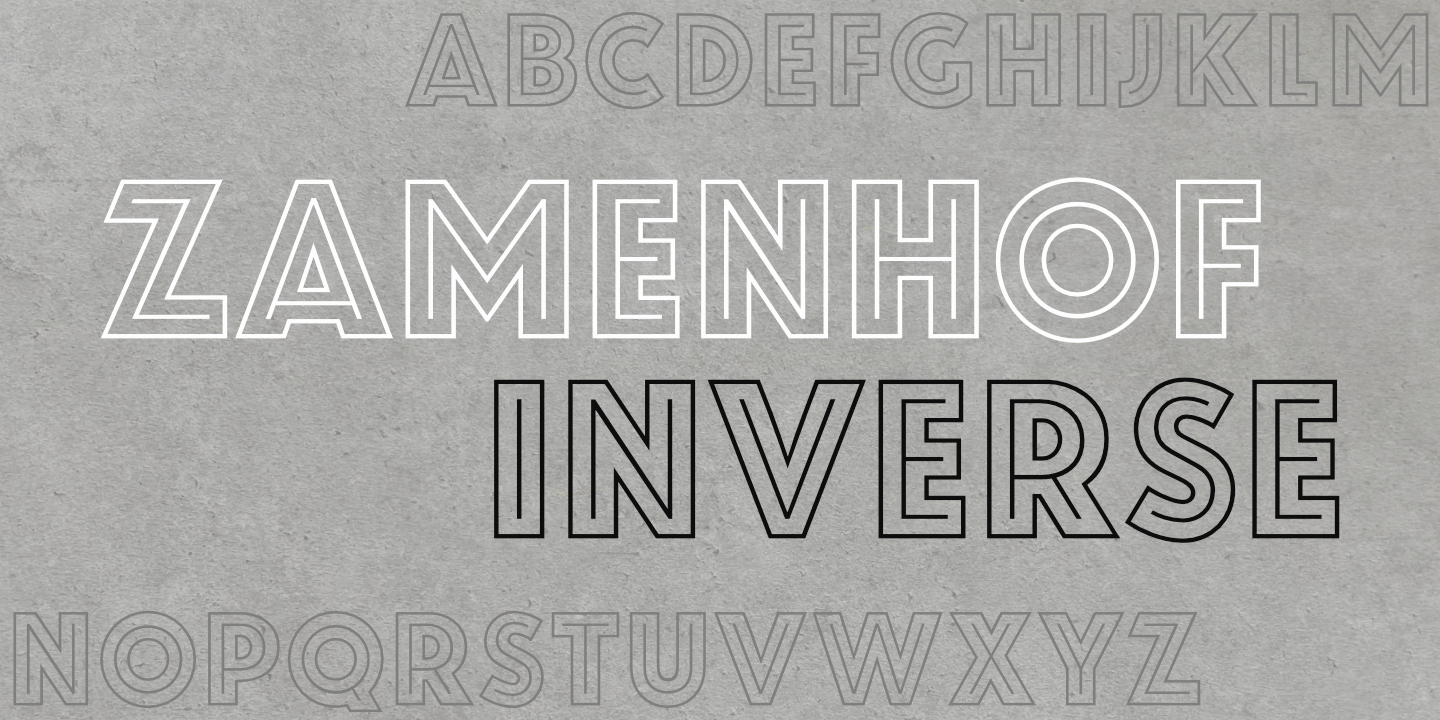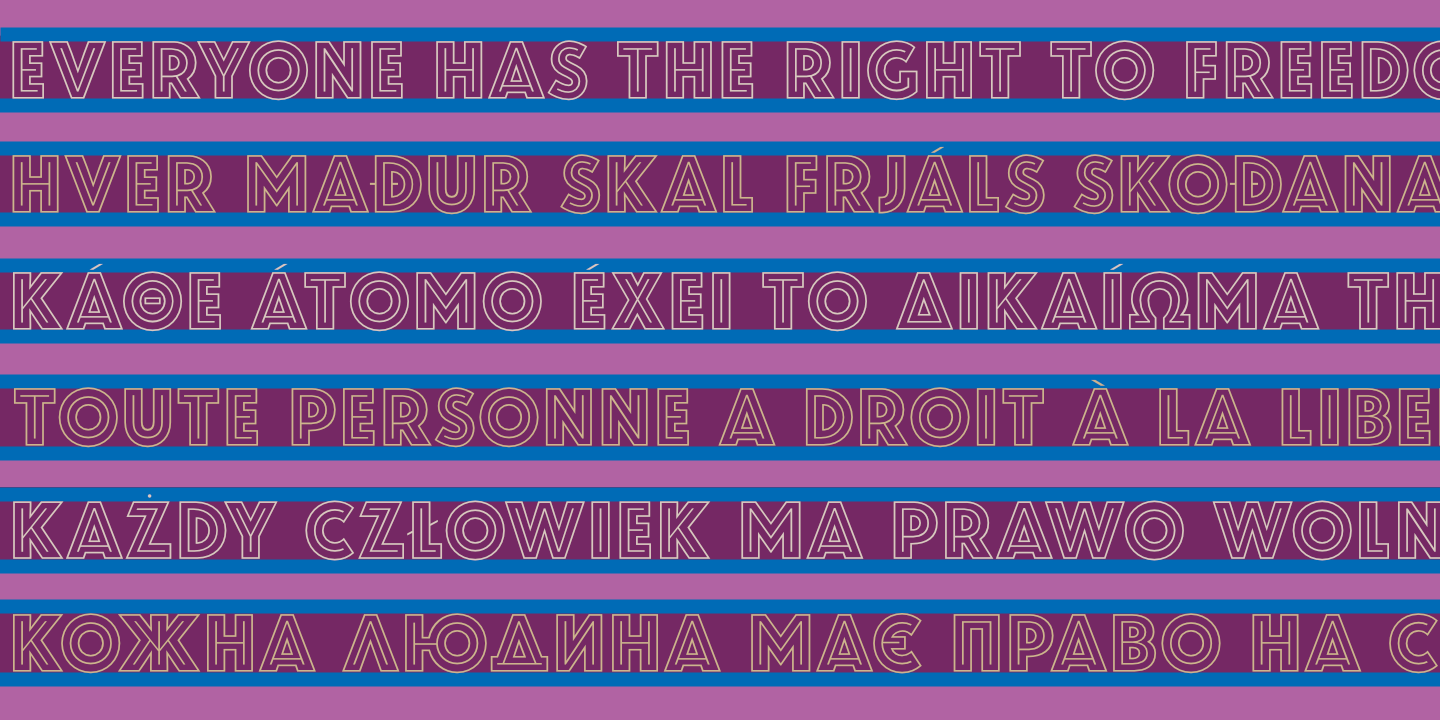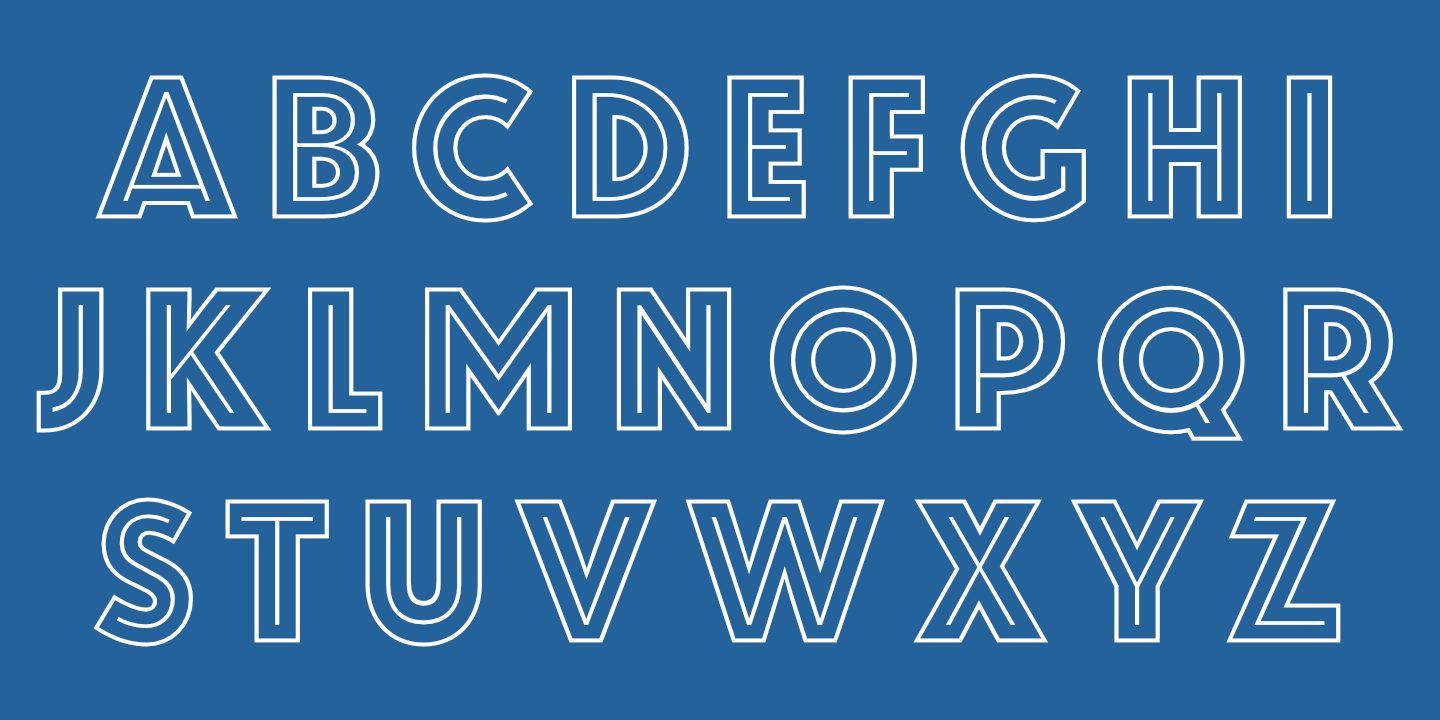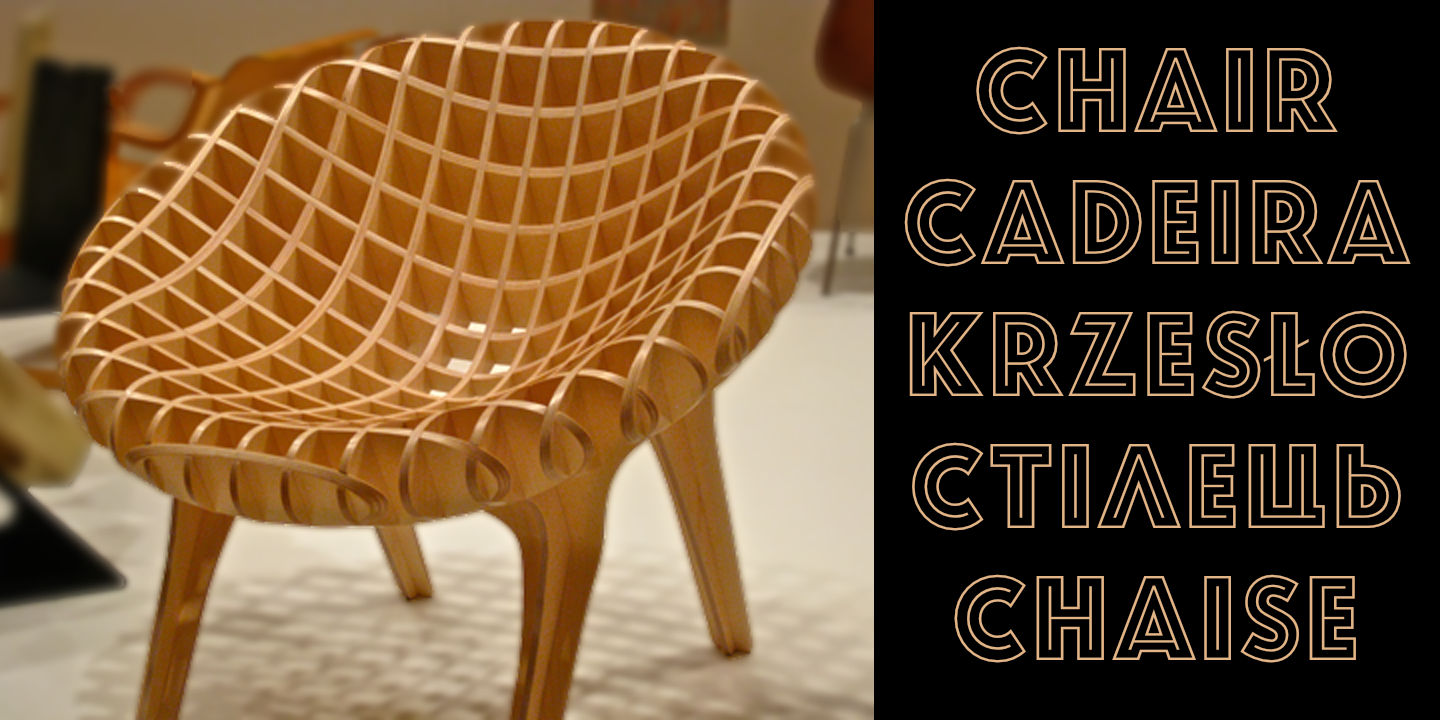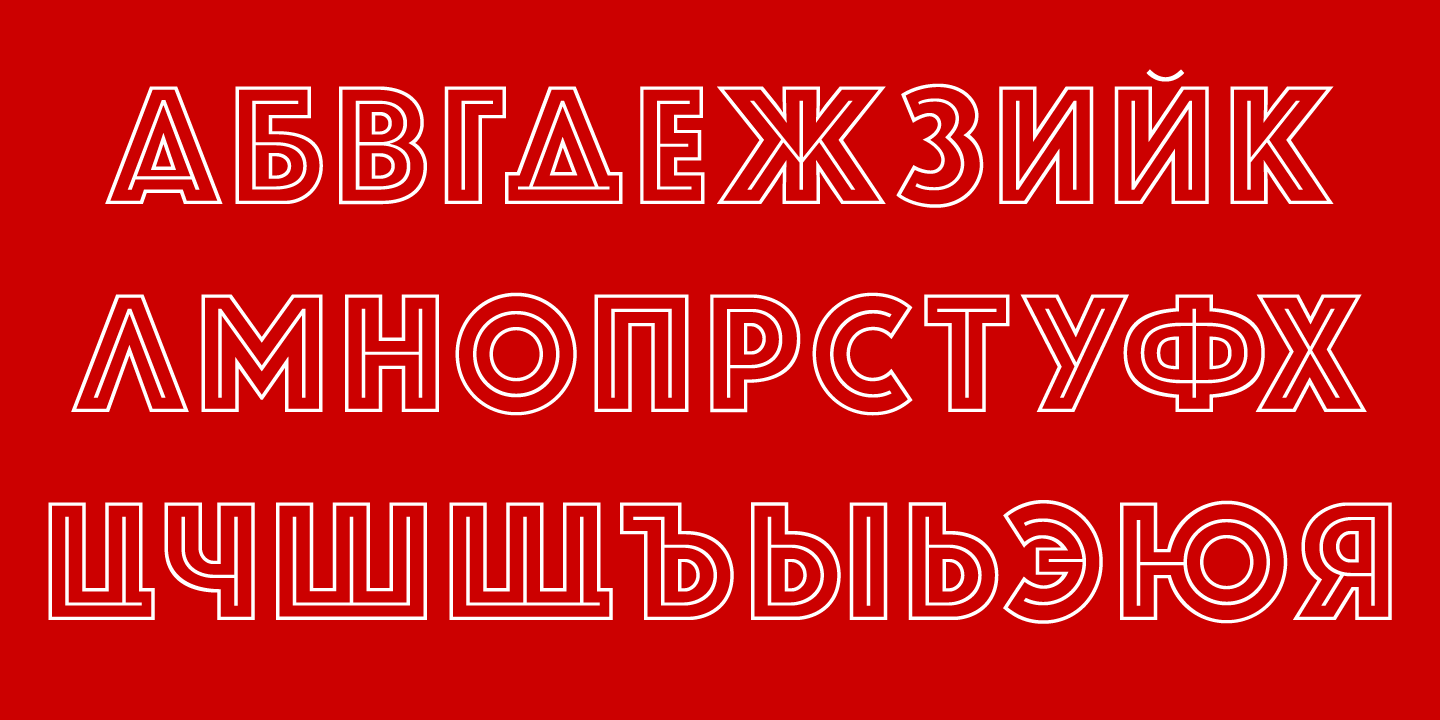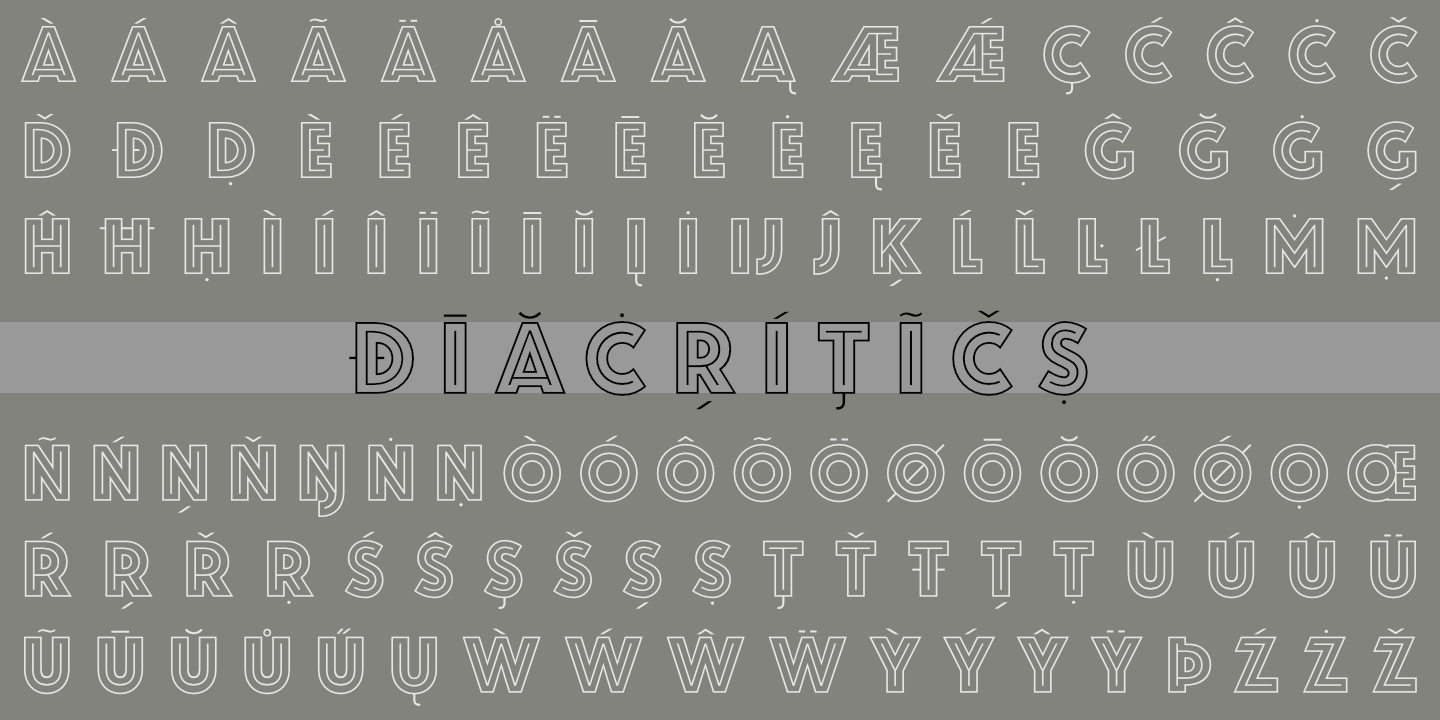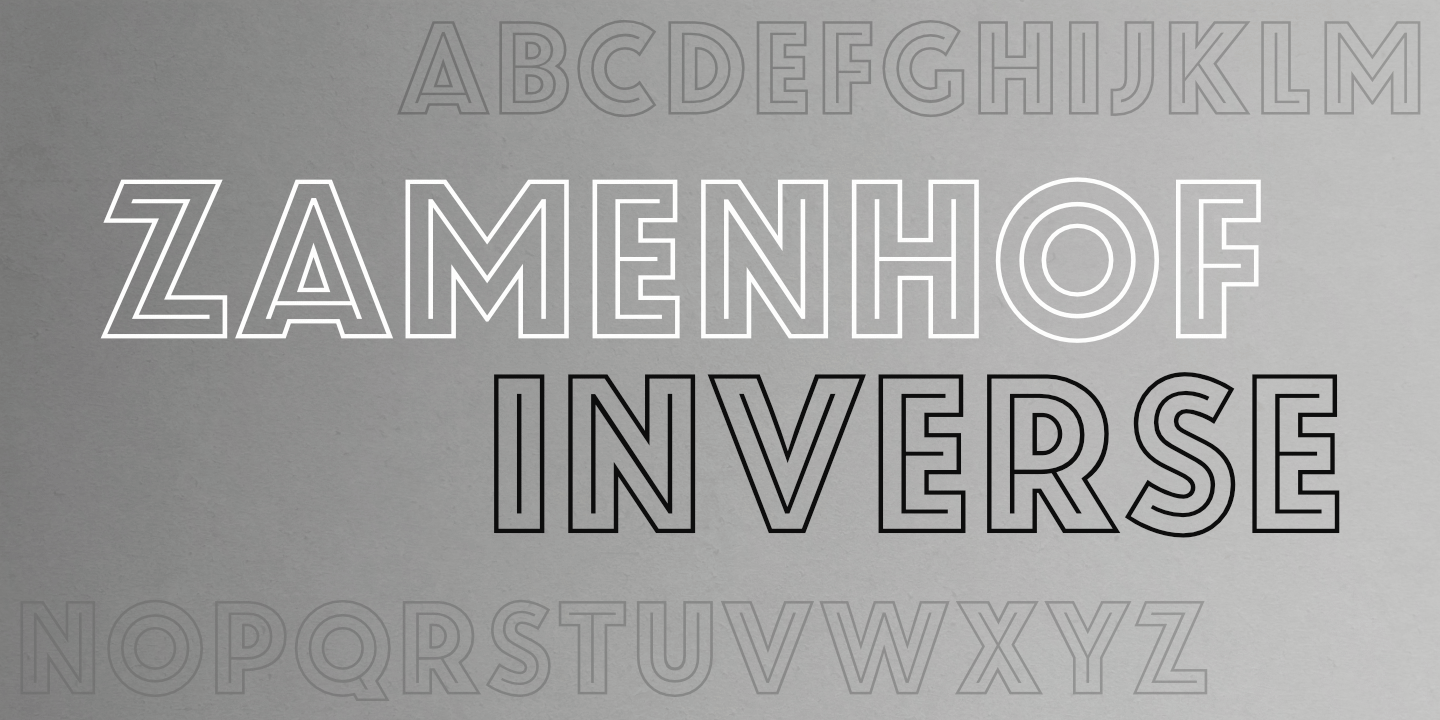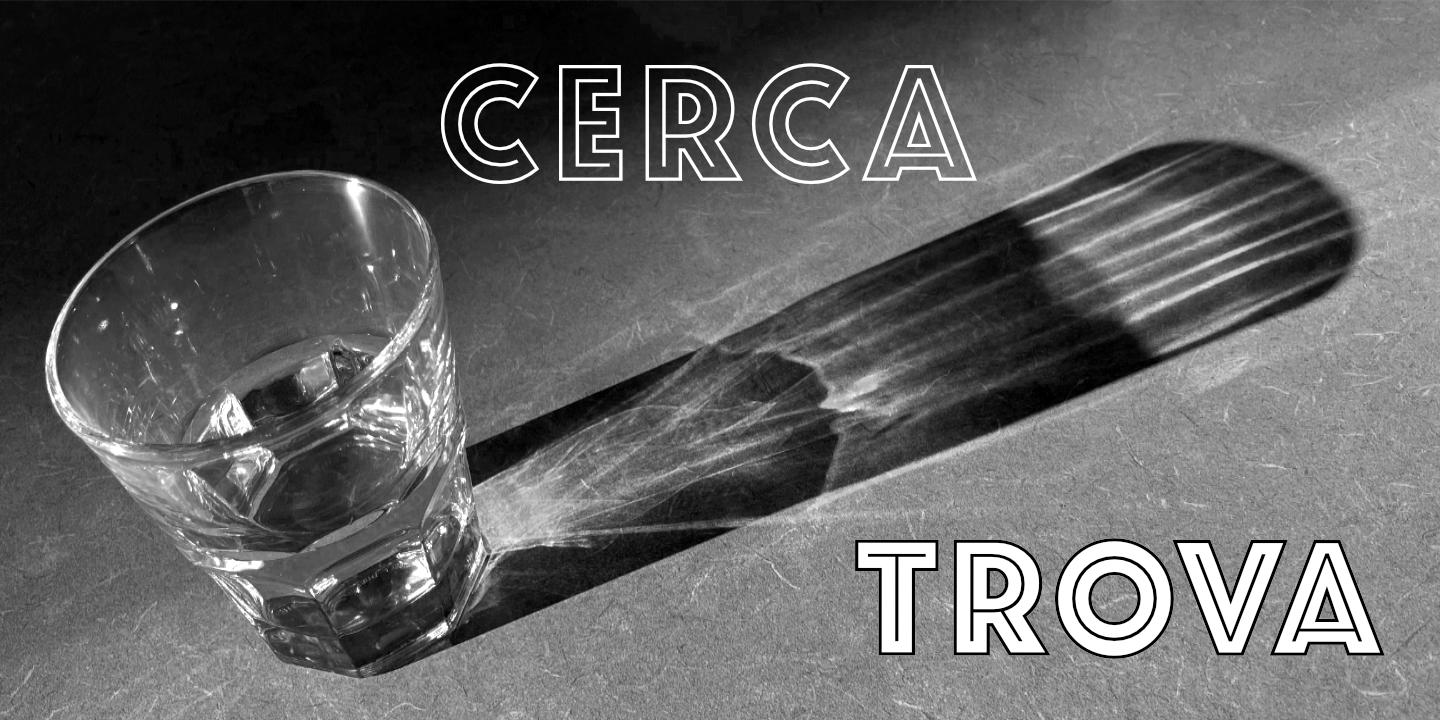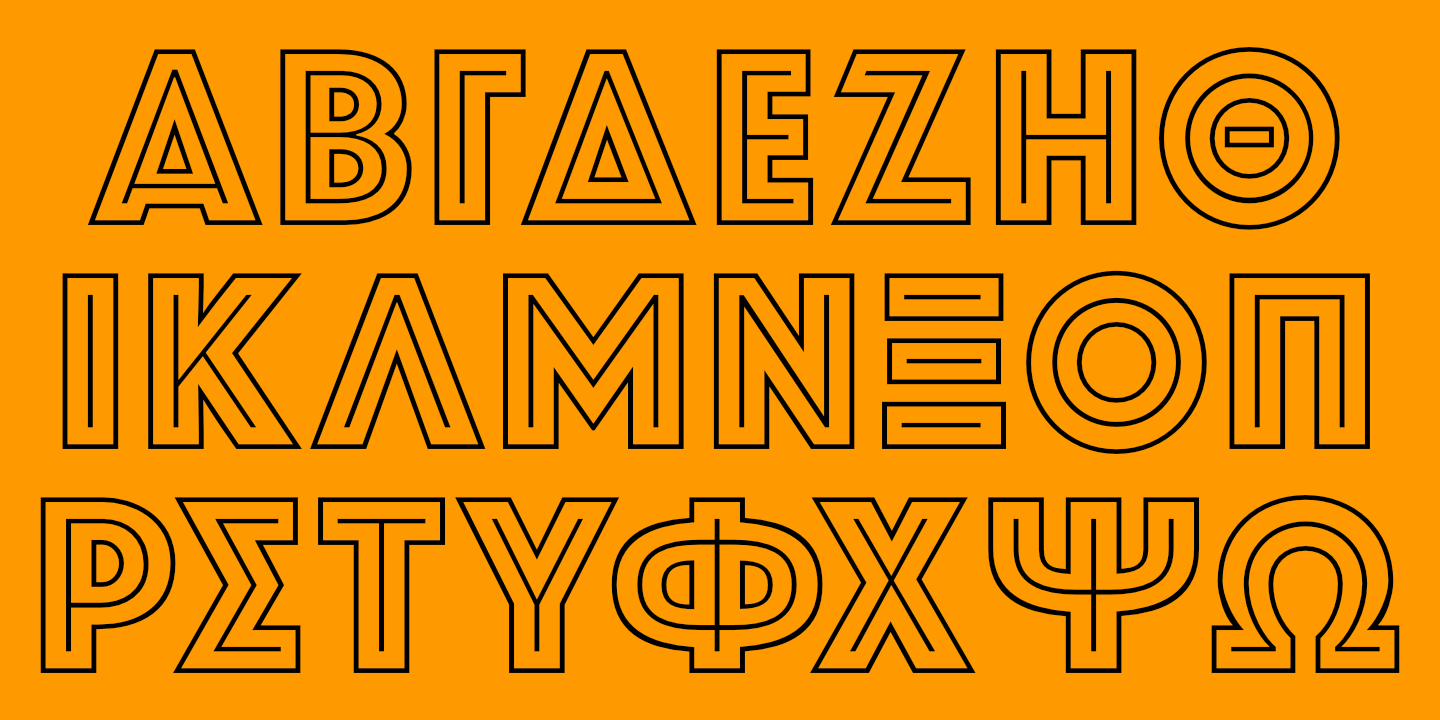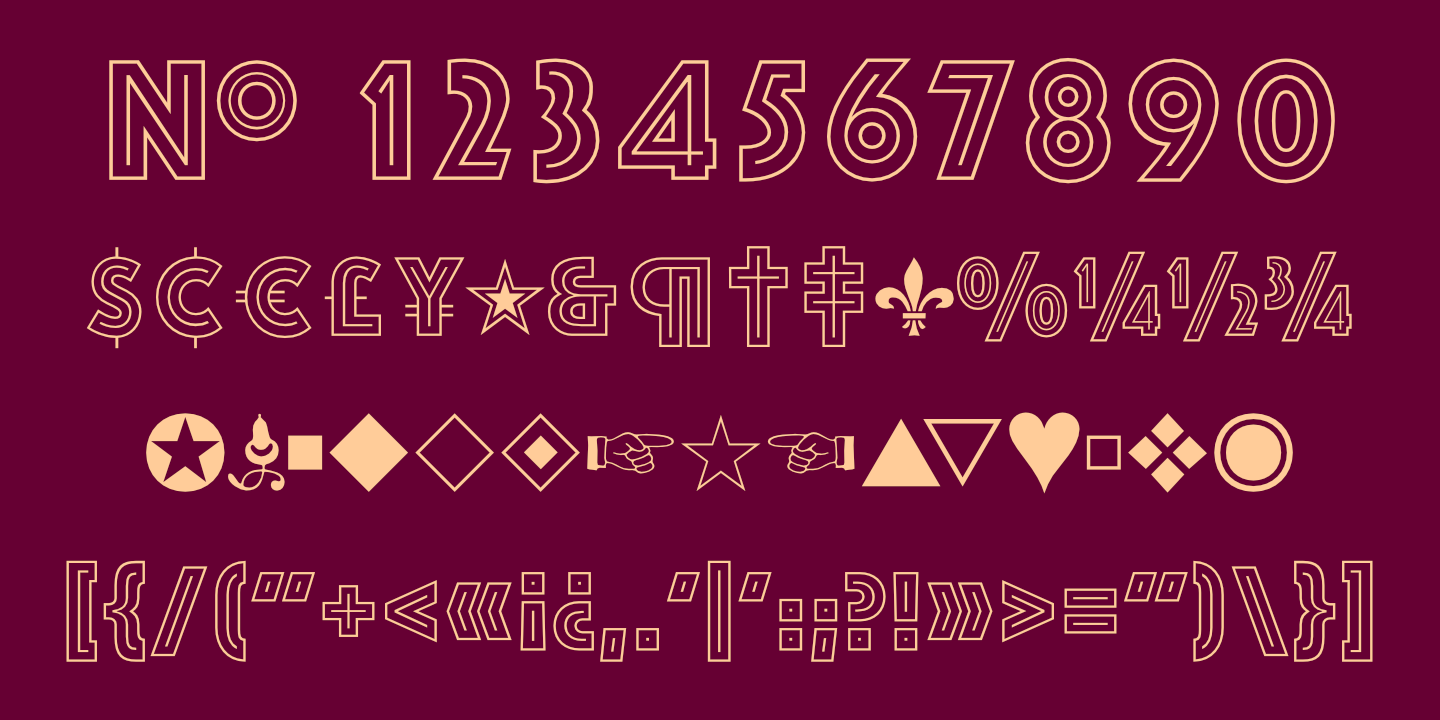
Latin Alphabet
Zamenhof Inverse supports most European languages. See Glyphs for details.
Cyrillic Alphabet
Zamenhof Inverse supports most languages that use the Cyrillic alphabet. See Glyphs for details.
Zamenhof Inverse supports modern (monotonic) Greek. See Glyphs for details.
Numerals, Punctuation, etc.
Zamenhof Inverse: Numerals, basic punctuation, currency symbols, and a sampling of ornaments.
UDHR
Zamenhof Inverse supports most languages that use the Latin or Cyrillic alphabet, as well as modern Greek.
Stacked Text
Notice that light text on a dark background appears slightly heavier than dark text on a light background. blank
Diacritics
Bialetti pot
Zamenhof Inverse (top, middle, bottom) alternated with Zamenhof Inline.
Cerca Trova
Zamenhof Inverse used alone ('CERCA') and layered on top of Zamenhof Solid ('TROVA').
Egg on a Plate
Zamenhof combos
Examples (above and below) of layering various styles of Zamenhof; the possibilities are endless.
Zamenhof layered
Pink Peony